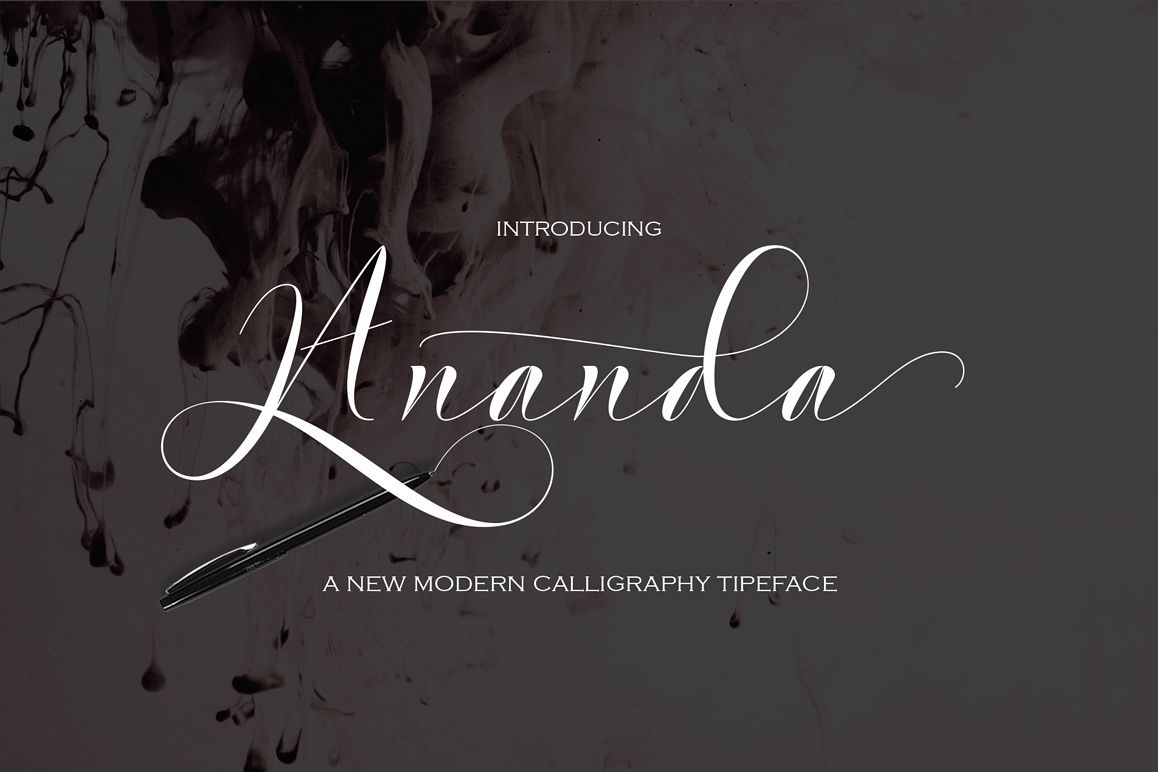
Ananda Font
Ananda Font is perfect for wellness center branding, yoga studio signage, meditation app interfaces, spiritual book covers, organic skincare packaging, and holistic health marketing materials. This serene typeface works exceptionally well in mindfulness publications, spa resort communications, and conscious lifestyle brand identity systems.
What makes Ananda Font so exciting is its harmonious balance that embodies tranquility and spiritual awakening through typography. The font features flowing, organic letterforms with gentle curves and balanced proportions that create a sense of inner peace and mindful awareness. Its calming aesthetic demonstrates exceptional attention to spiritual design principles, making it ideal for brands seeking to convey serenity, wisdom, and enlightened consciousness.
Ananda Font comes in multiple weight variations including Light, Regular, Medium, and Bold styles. The font family also includes decorative elements, spiritual symbols, and ornamental flourishes inspired by Eastern calligraphy traditions that enhance the meditative quality of design compositions.
The font's organic flow ensures excellent readability while maintaining its spiritual essence across various meditation and wellness applications. Professional designers appreciate its comprehensive character support and Unicode compatibility that ensures consistent performance in multilingual spiritual contexts.
Ananda Font has become increasingly popular among creative professionals working with mindfulness and wellness brands. Its ability to convey peace and spiritual depth makes it an invaluable asset for organizations seeking to establish authentic connections with conscious consumers through meaningful typography.